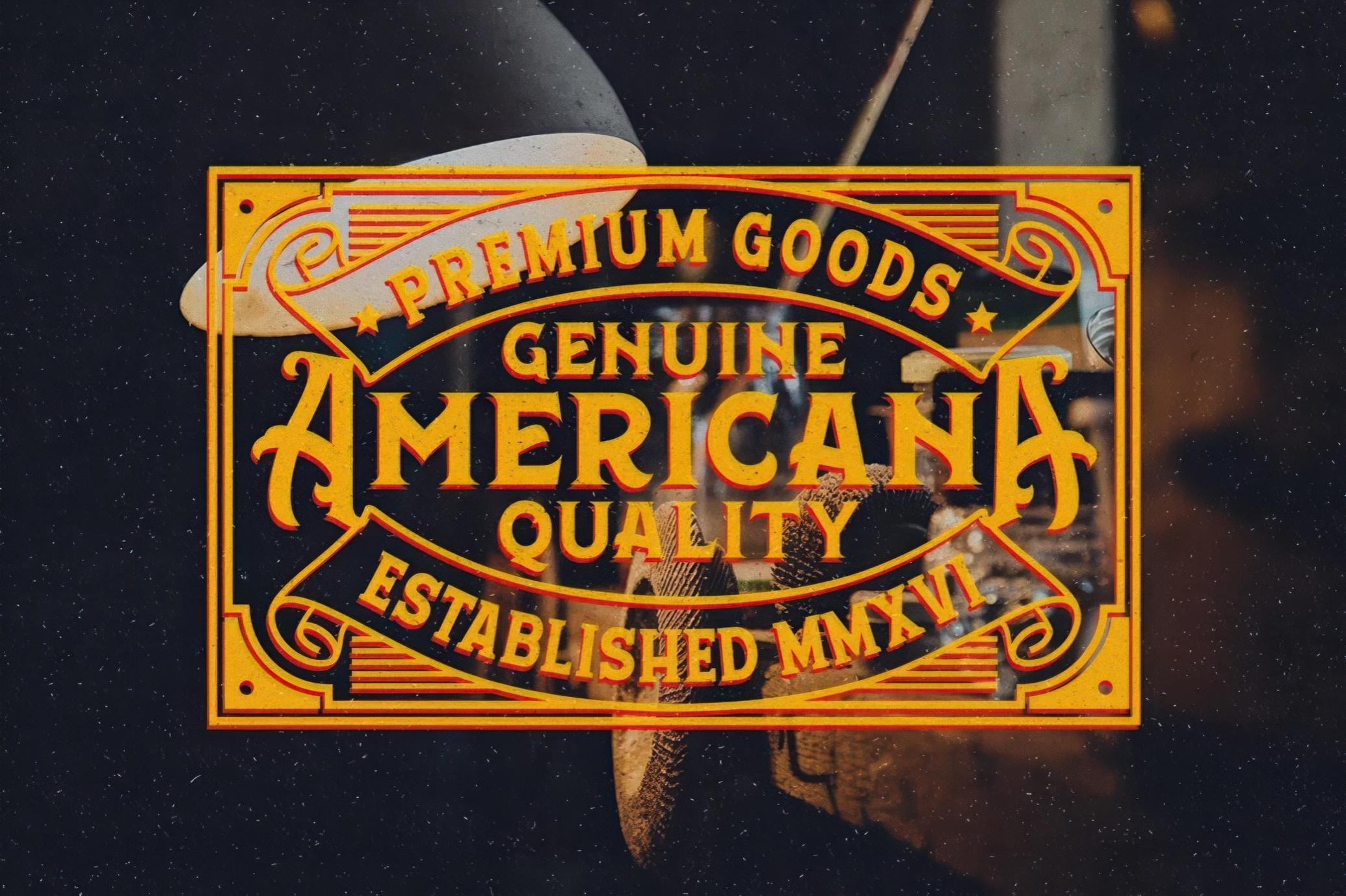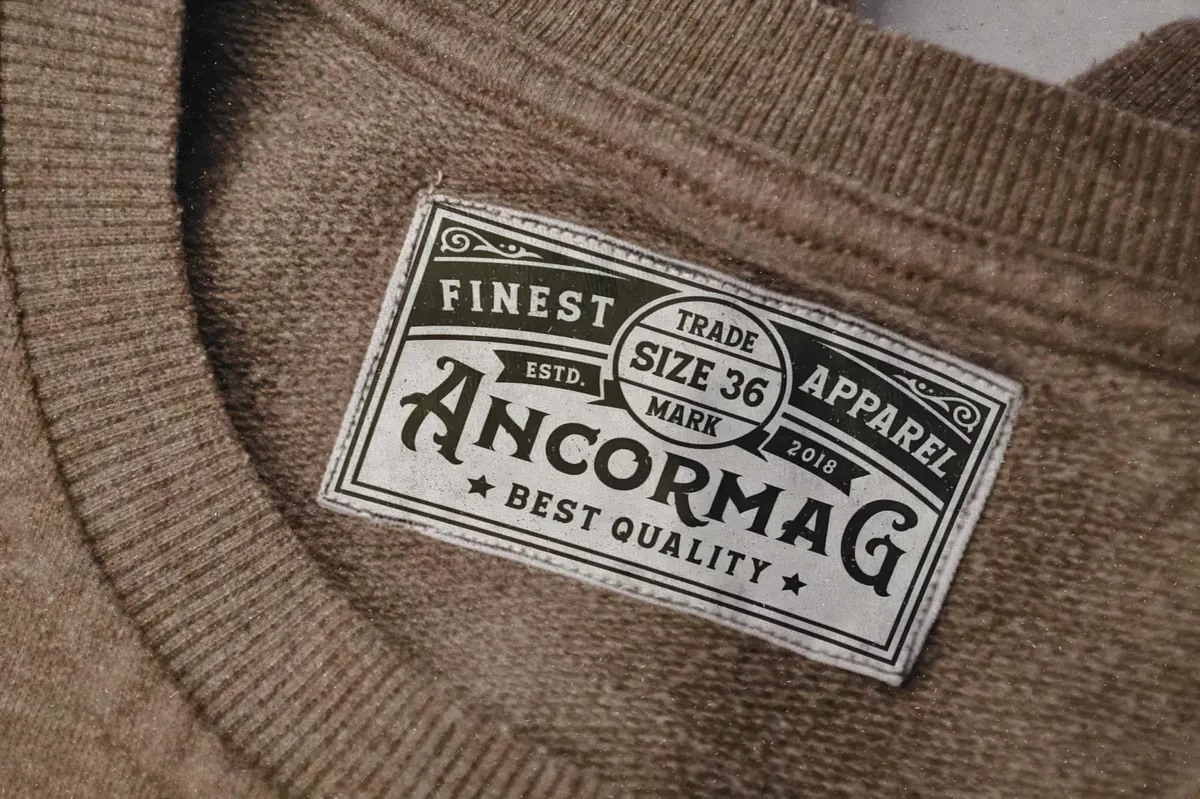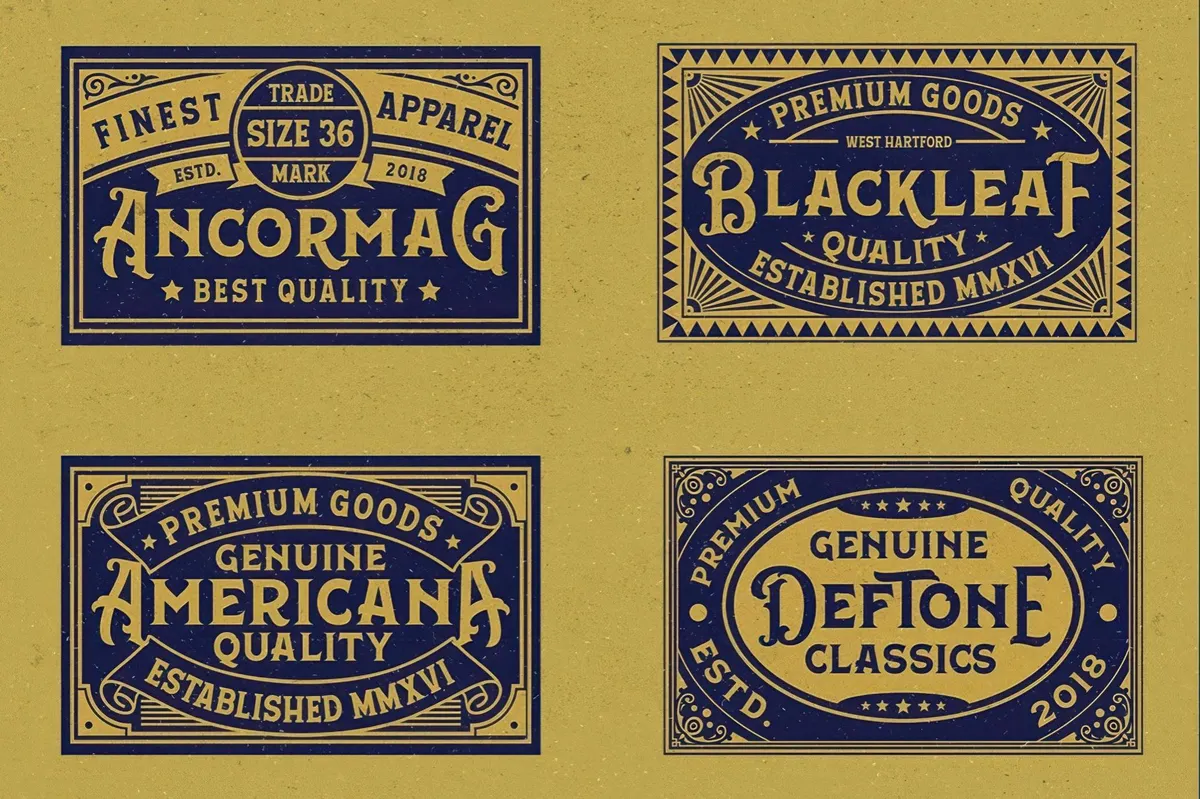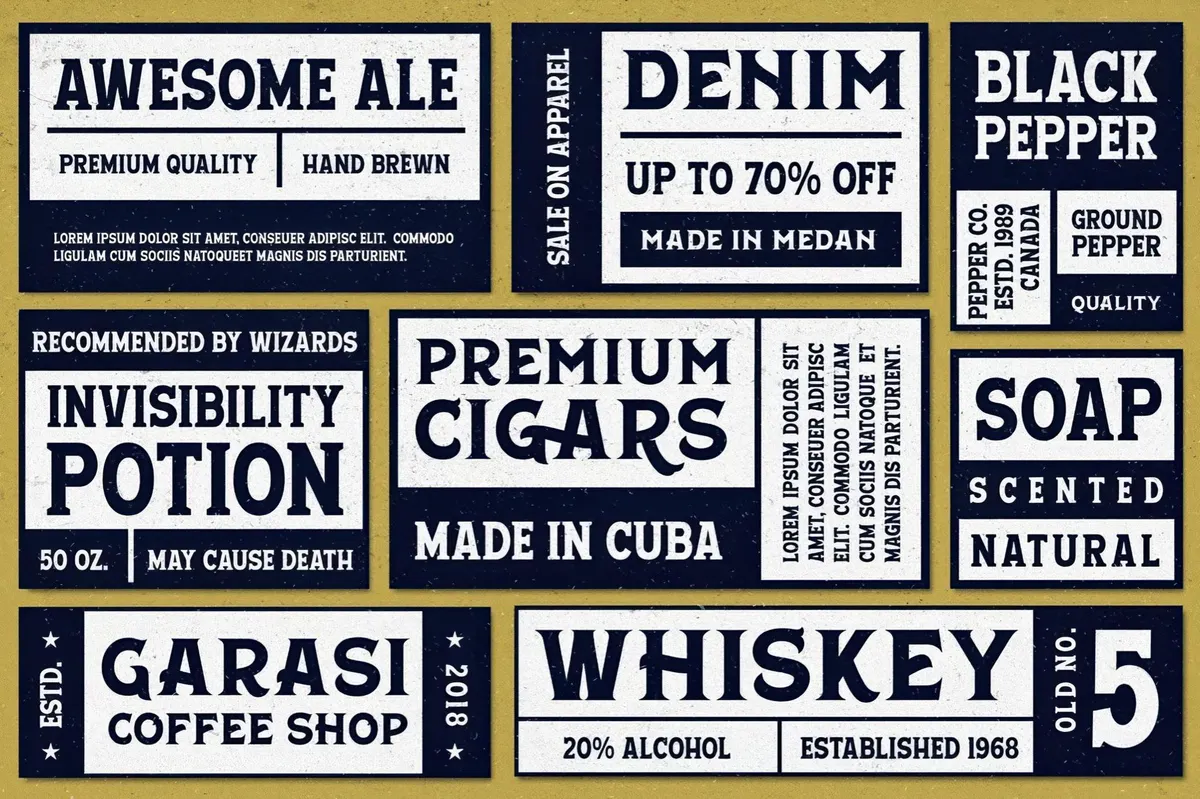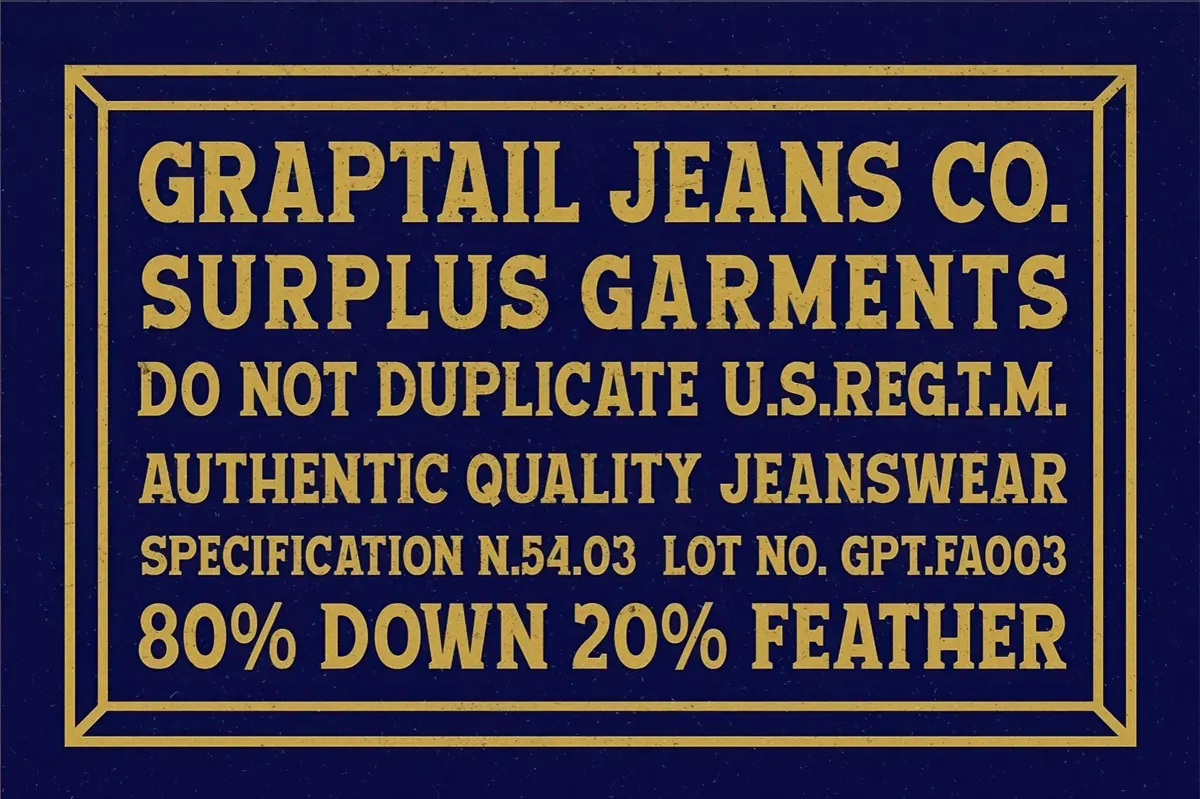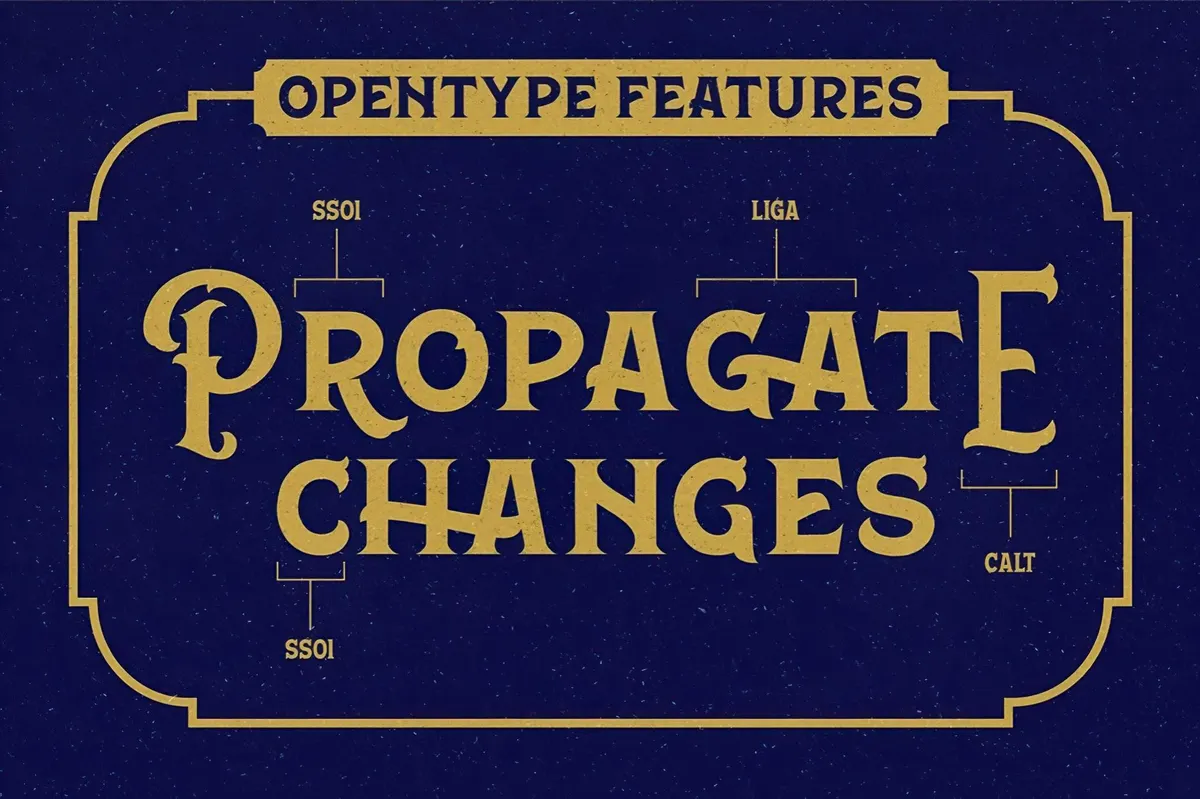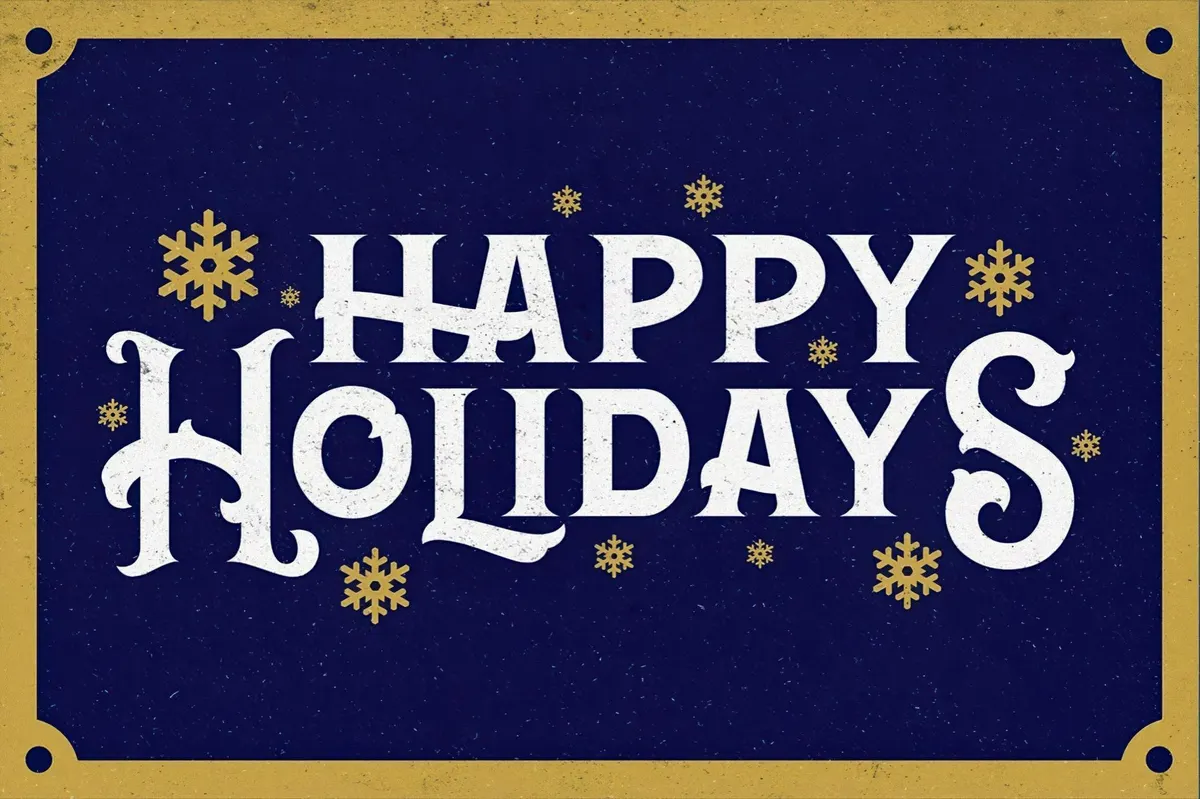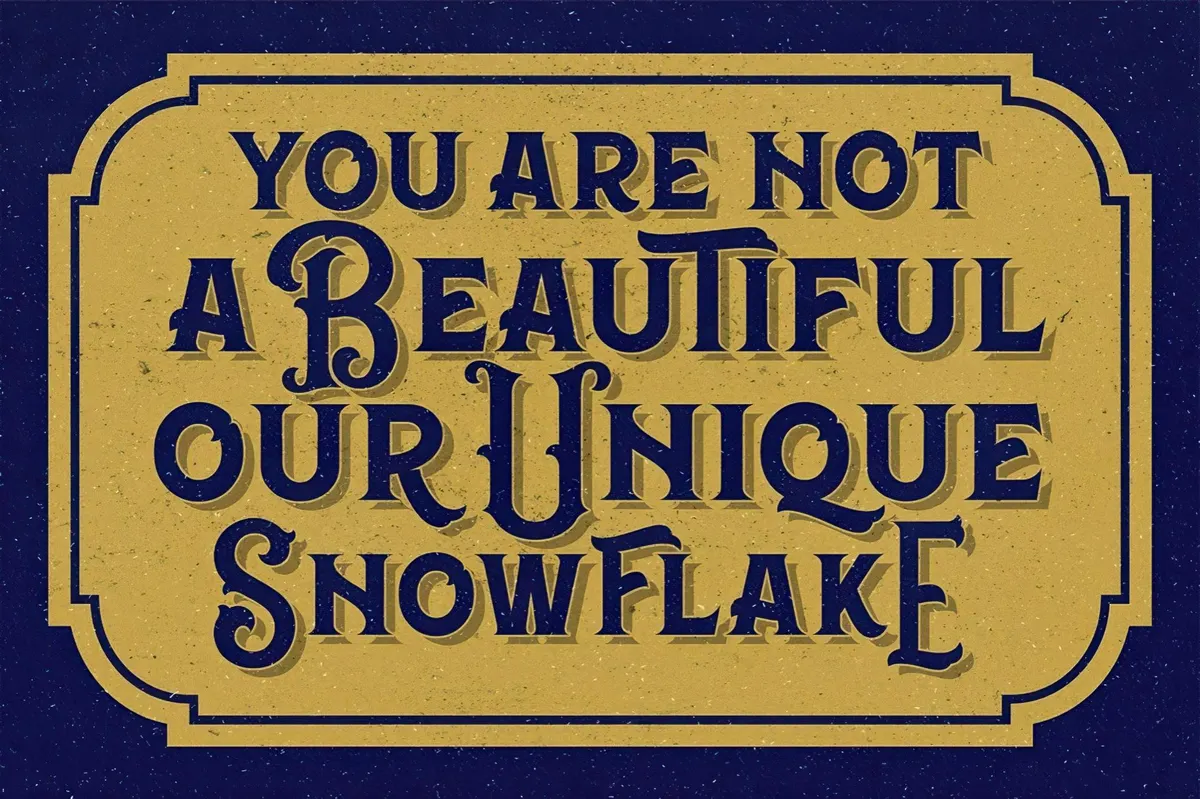
Aerohate Typeface & Extras
Hear the sound of steam machines? This is the deafening noise of Aerohate's letters. The font is so unmistakably steampunk and Victorian that you'll catch the industrial vibe from the first word. Whatever the word is, actually, as the font features an extended set of glyphs, including standard ligatures, contextual alternates, stylistic alternates, and additional swashes. You can freely use Aerohate for vintage design, but don't let it become your limit. The font will also suit spirits labels, cafe & restaurant branding, collages, apparel, tattoos, movie posters, and interior design elements.